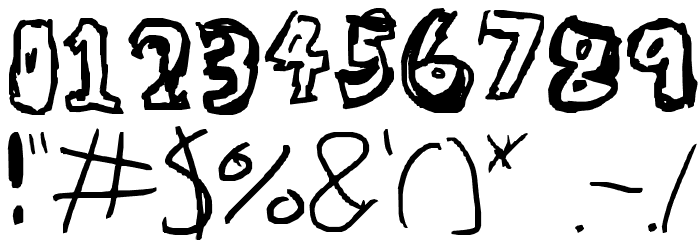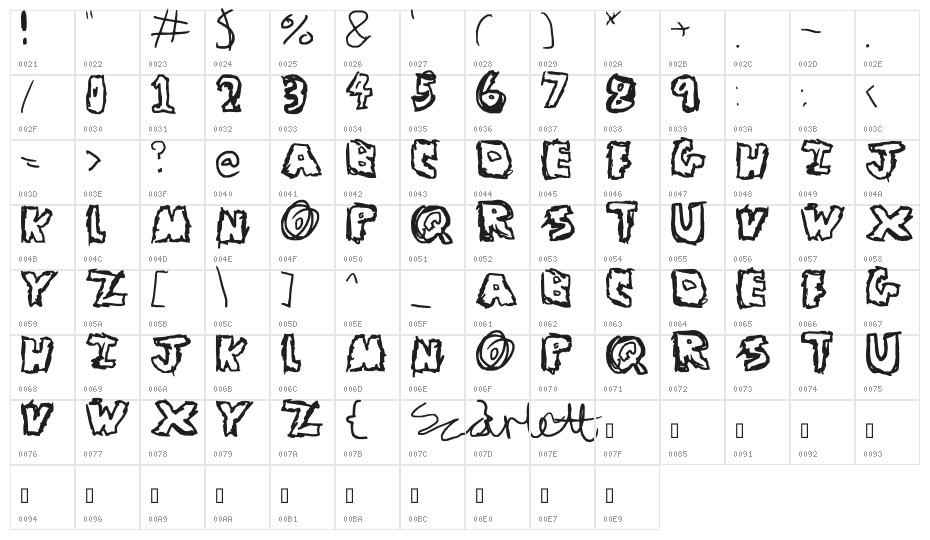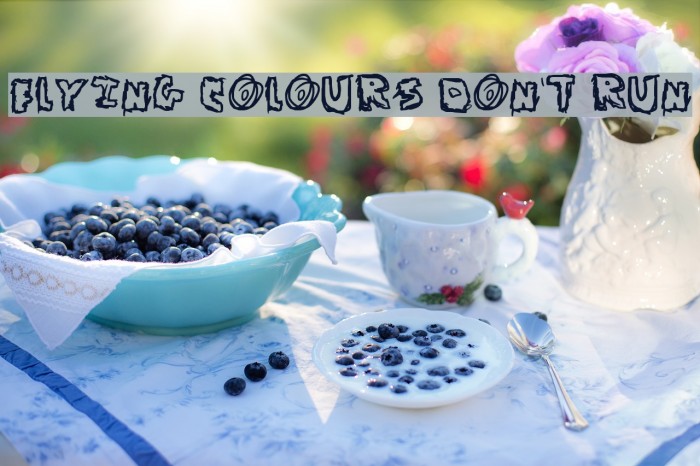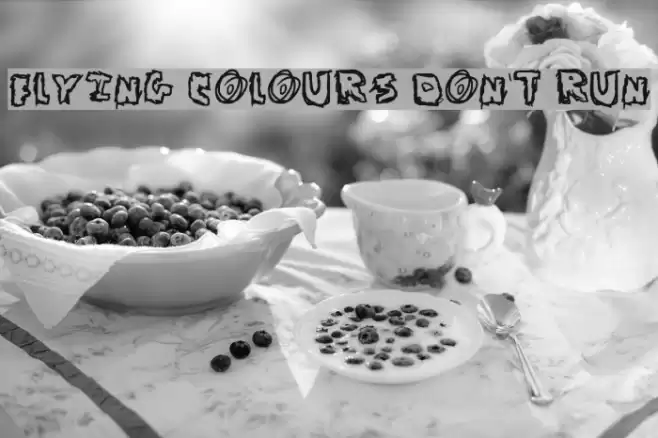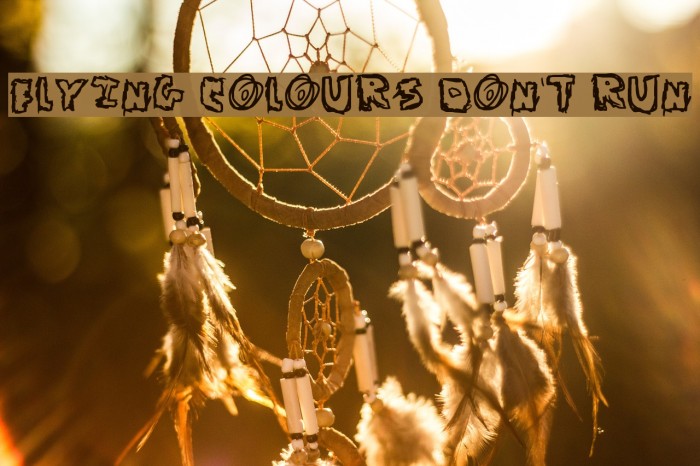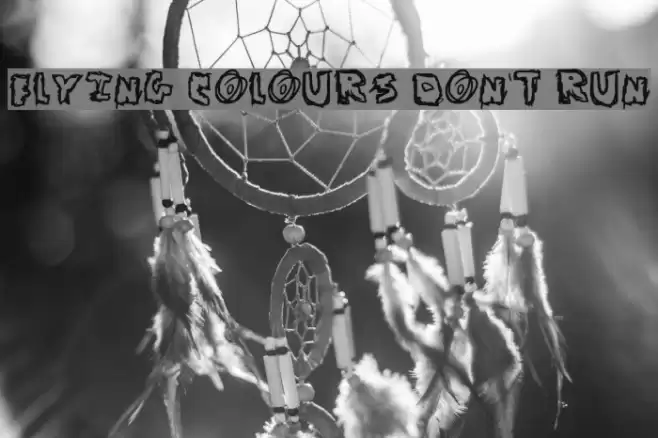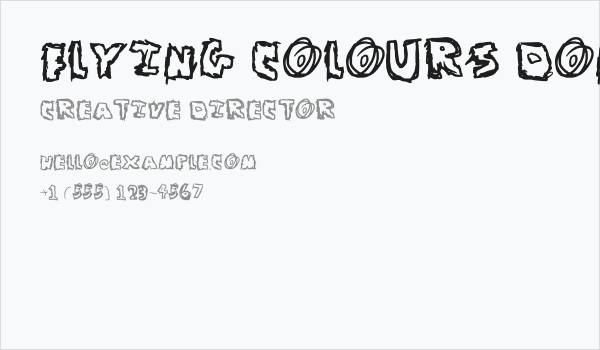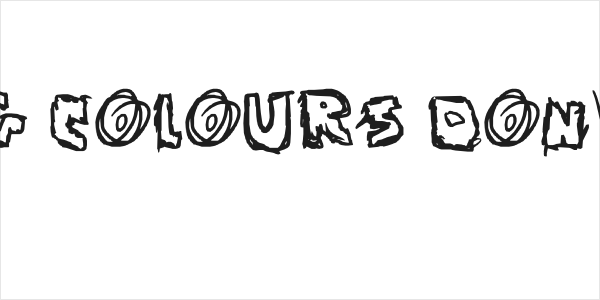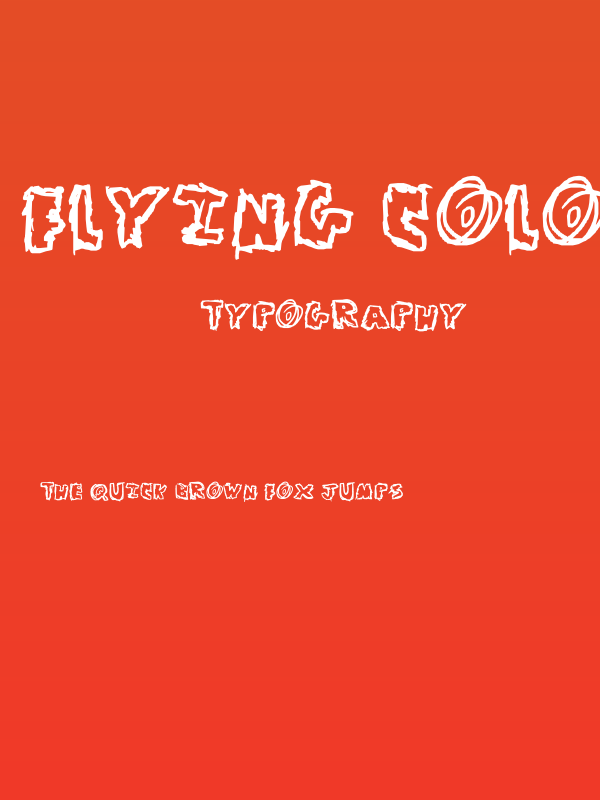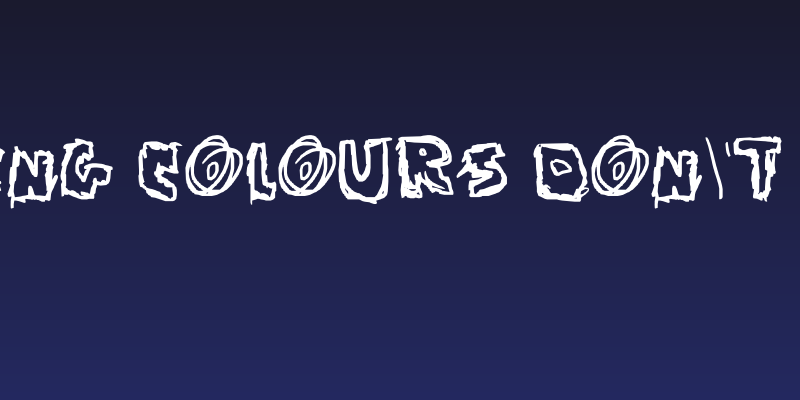
Flying Colours Don't Run Font
Flying Colours Don't Run Description
This font features a bold, rugged style with a hand-drawn appearance, characterized by irregular edges and a distressed look. The letters are uppercase and lowercase, with numbers and special characters that maintain the same rough aesthetic. The strokes are thick and uneven, giving a dynamic and energetic feel. This font is highly decorative, making it suitable for eye-catching designs. The overall style is reminiscent of graffiti or urban art, providing a sense of movement and spontaneity. The characters are tightly spaced, enhancing the compact and impactful nature of the font.
| Overall Style | Urban, Graffiti, Energetic |
| Proposed Projects | Ideal for posters, album covers, street art designs, and edgy branding projects. |